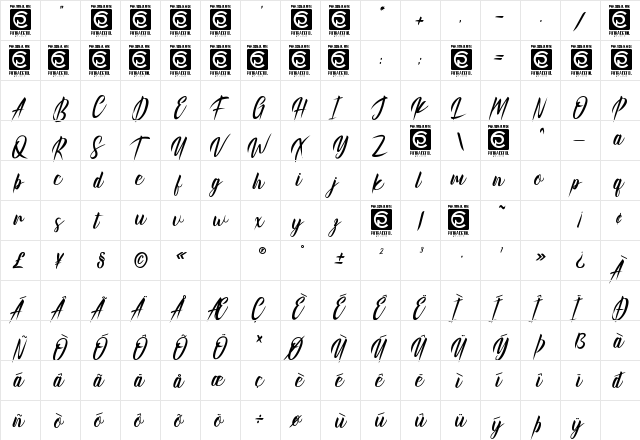
Kinghawk Regular
| Foundry | Putracetol Studio, Karanganyar. |
| Designer | Putra Novembria Candra Kusuma |
Design Context for Kinghawk Typeface
Kinghawk is a composed and adaptable typeface that performs quietly and consistently across a wide range of design contexts.